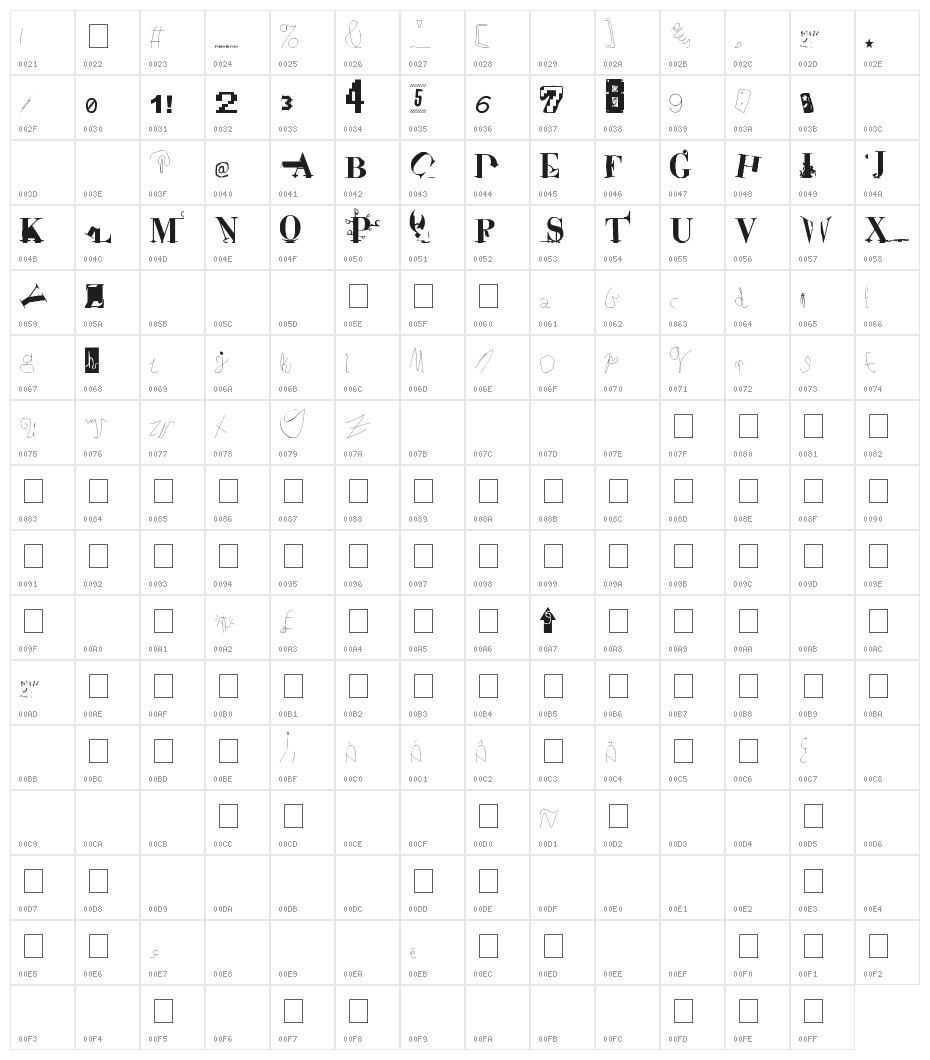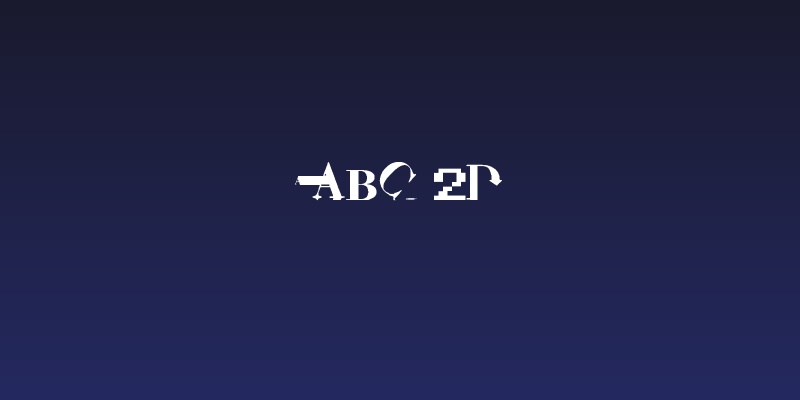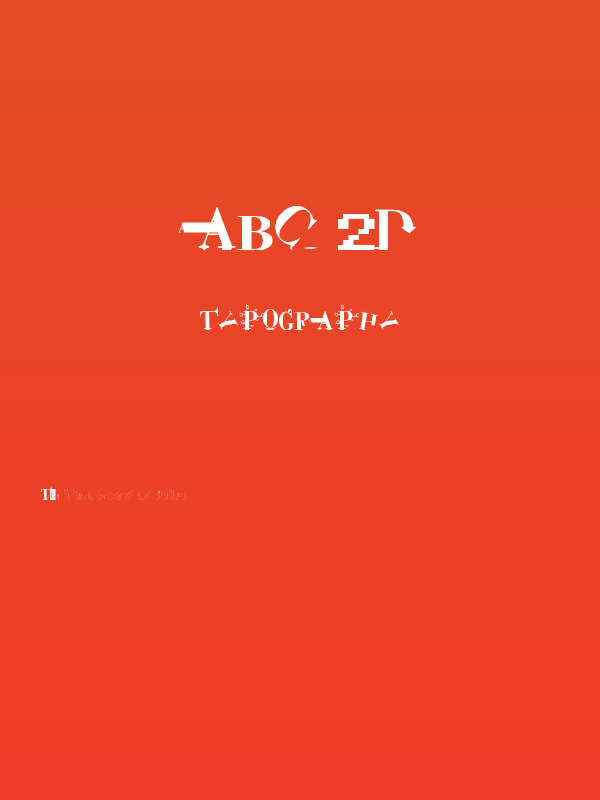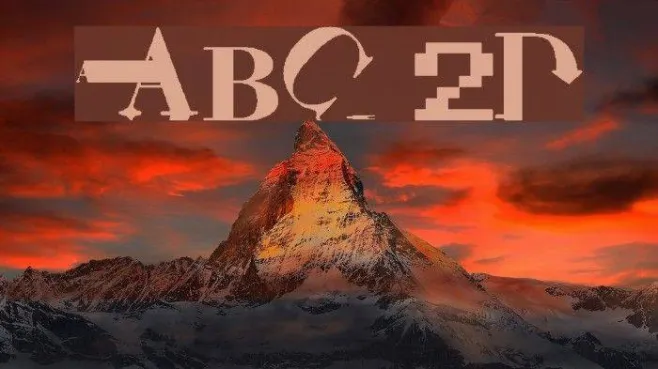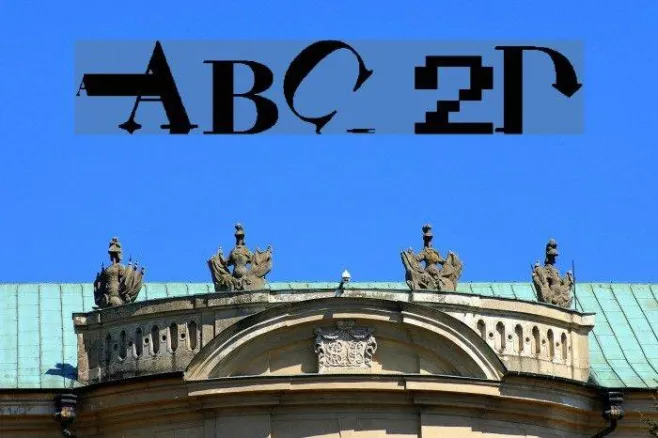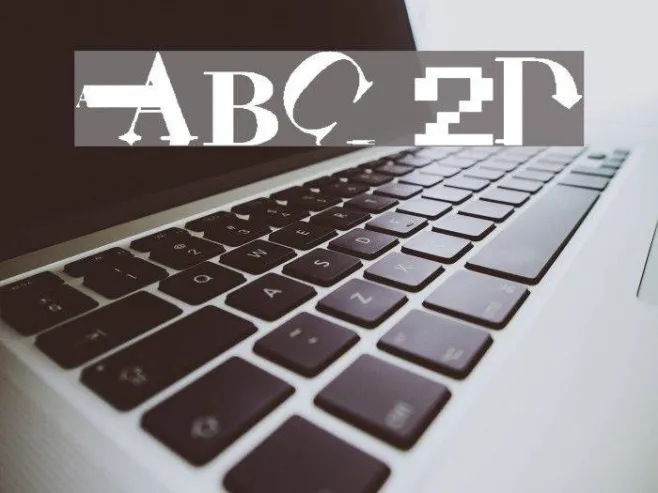
ABC 2D Font
ABC 2D Description
This font is a highly creative and experimental typeface that combines elements of distortion and abstraction. The uppercase letters feature a fragmented and deconstructed style, with varying levels of distortion applied to each character. The lowercase letters are rendered in a loose, hand-drawn script that adds a whimsical and artistic touch. The numerals are bold and blocky, with some characters incorporating unique patterns and textures. Special characters are similarly stylized, adding to the overall eclectic and avant-garde aesthetic. This font is designed to make a bold statement and is ideal for projects that require a distinctive and unconventional look.
| Overall Style | Modern, Artistic |
| Use Case | Headlines, Logos, Artistic projects |
| Proposed Projects | Ideal for avant-garde posters, album covers, experimental art projects, and unique branding. |